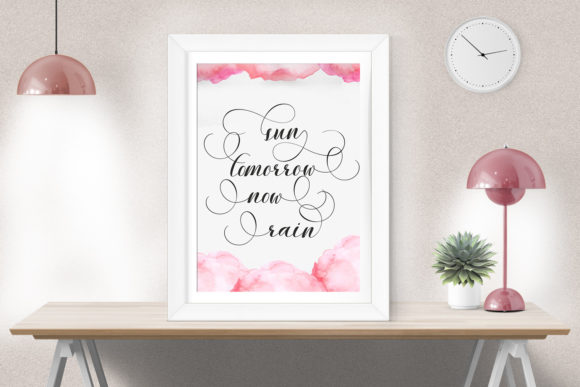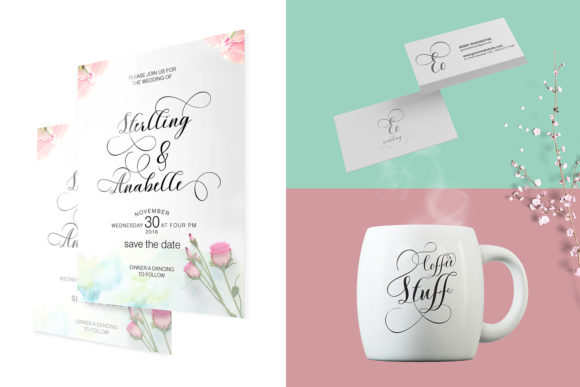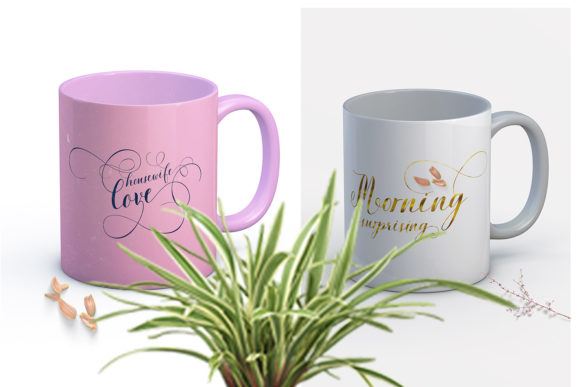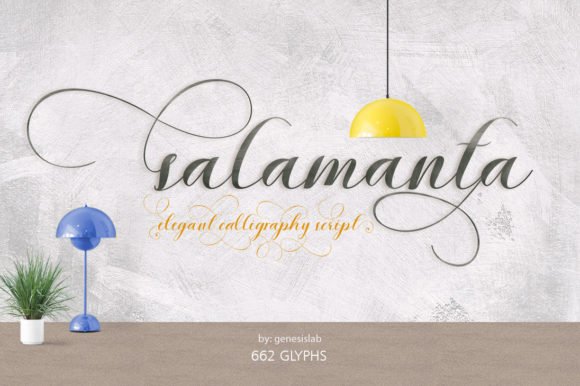
Introduction to Salamanta Script Font
Salamanta is a beautiful and modern script font that can make any text look better and more inviting.
Perfect for invitations, greeting cards, art typography, logo, letterpress printing, parties, graduations, birthdays, gatherings, and all sorts of other design projects This font is PUA encoded, which means you can access all of the glyphs and swashes with ease.
Key Features of Salamanta Script Font
Why Choose Salamanta Script Font?
Salamanta Script Font offers exceptional quality and versatility, making it a valuable addition to your design toolkit. Whether you’re creating for personal projects or commercial use, Salamanta Script Font delivers professional results.